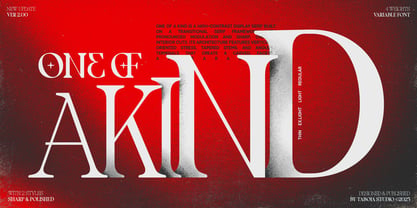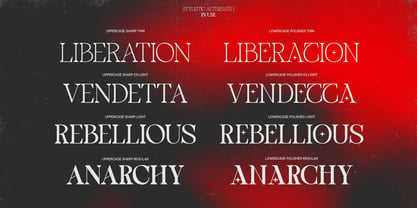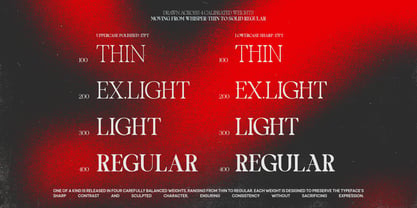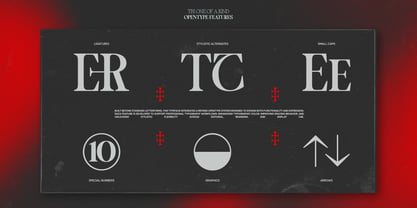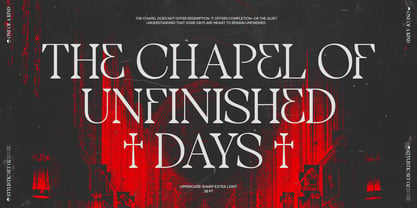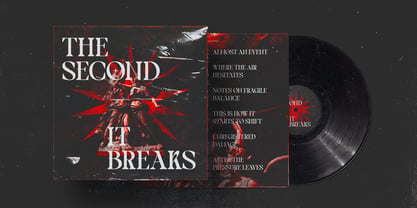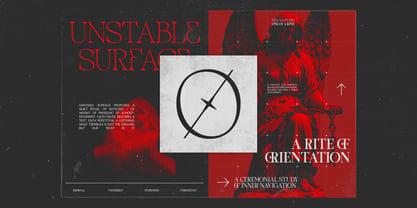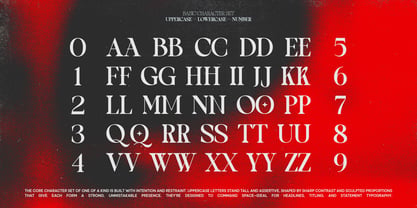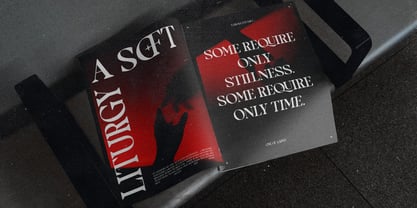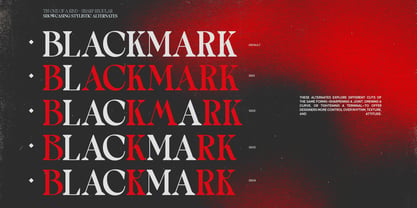
TBJ One of a kind
by Taboja Studio
The TBJ One of a kind Font Family was designed by Yusilo Oktaprima Ardani and published by Taboja Studio. TBJ One of a kind contains 8 styles and family package options. More about this family
One of a Kind is a modern experimental serif typeface now updated with refined alternates, fresh ligatures, a complete family, and two distinct styles: Polished (Smooth) and Sharp (Angular). It merges classic serif sophistication with bold modern innovation. The contrast between its polished curves and angular serifs brings an expressive yet balanced character, ideal for branding, editorial design, posters, and sophisticated display use. Each letterform is crafted to balance elegance and experimentation making it perfect for designers seeking a typeface that feels timeless, artistic, and forward-thinking. If you encounter any issues or have feedback, please feel free to reach out we’d love to keep improving our fonts. Stay inspired and keep creating.
Designers: Yusilo Oktaprima Ardani
Foundry: Taboja Studio